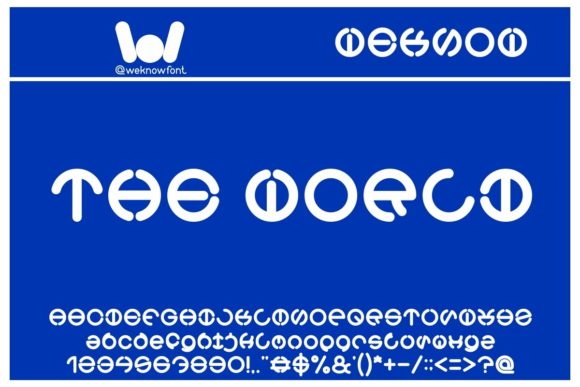
Journey into the realm of digital artistry with The World Font, a display font that captivates and communicates with its striking techno aesthetic. Gaze upon its sharp edges and sleek curves—a symphony of modern design that elevates your creations beyond the ordinary. Step into a world of endless creative possibilities, where The World Font dances across your screen, leaving a trail of visual brilliance in its wake.
Immerse yourself in the versatility of The World Font, a font that adapts seamlessly to your creative vision. Whether you're crafting web designs that demand attention, designing business cards that leave a lasting impression, or seeking a unique touch for any project, The World Font rises to the challenge. Let your imagination soar as you explore the myriad ways this remarkable font can transform your designs.
Unleash your creativity and embark on a typographic adventure with The World Font. Its bold and confident strokes command attention, while its subtle nuances add depth and intrigue. Watch as your words leap off the screen, captivating your audience with their vibrant energy. The World Font is more than just a font; it's an artistic expression that ignites your passion for design.
With The World Font, you possess the power to craft designs that resonate with your audience. Its techno-inspired design adds an edge of sophistication and modernity to your projects, ensuring they stand out from the crowd. Embrace the future of typography and let The World Font guide you towards design excellence.